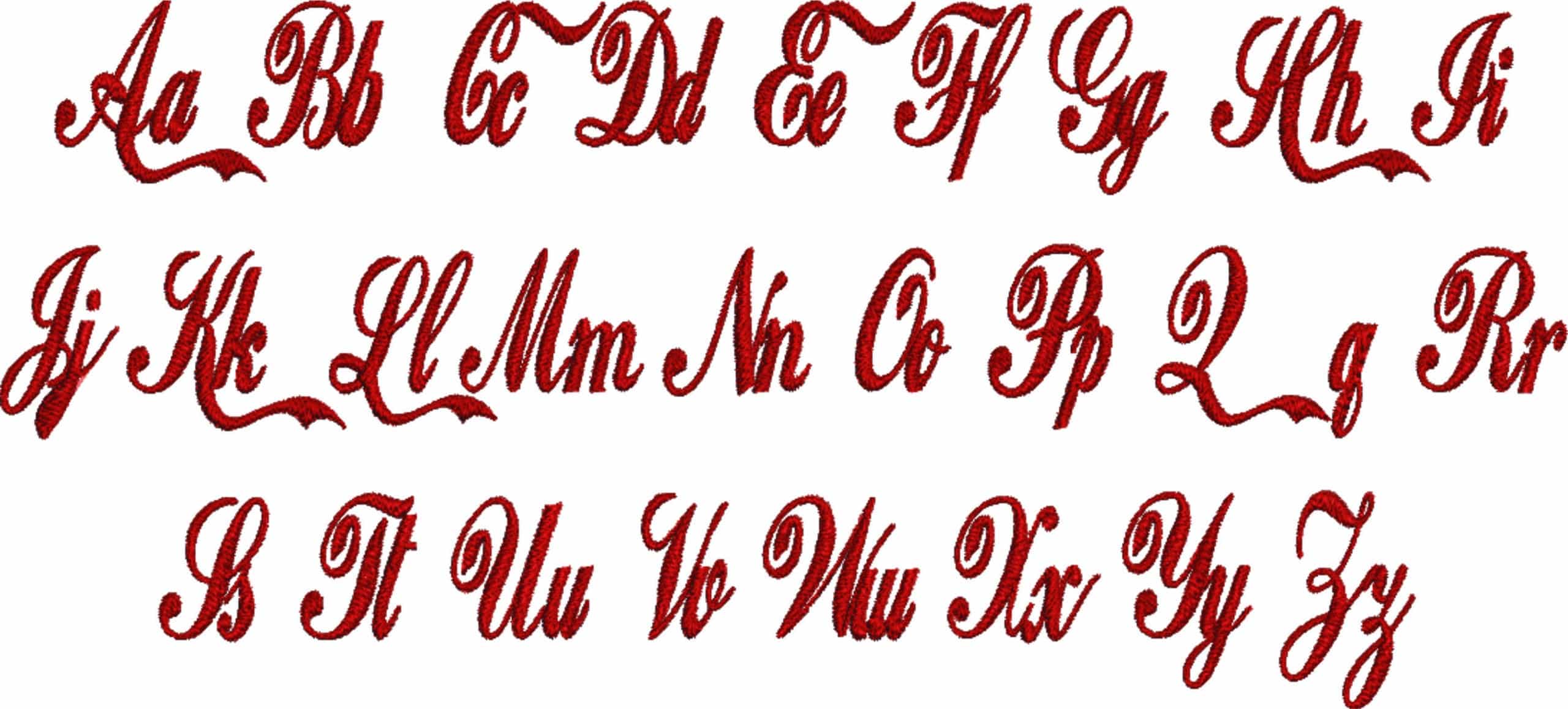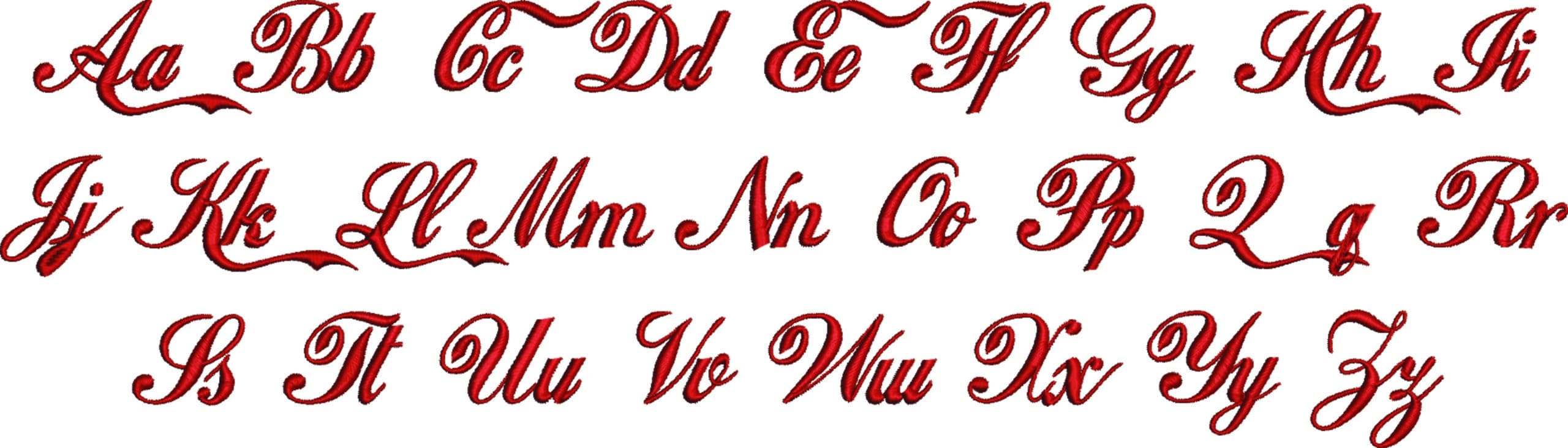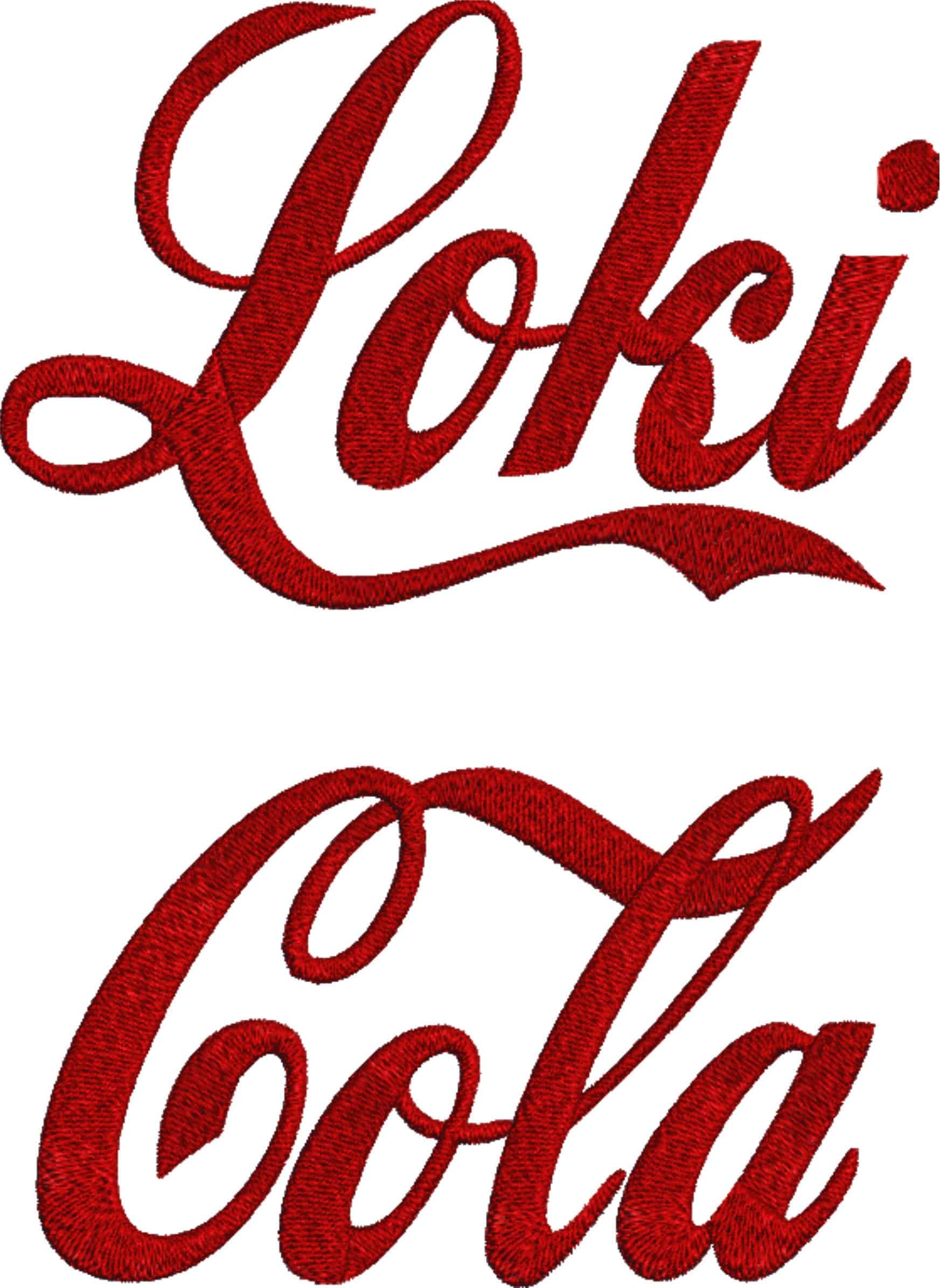
A bold cola-style script font with sweeping swashes, ideal for names, slogans and standout stitching on casual pieces.
Add retro script to your stitching with this Loki Cola embroidery font set, styled in flowing cursive with looped capitals and a classic underline swash. The lettering has the familiar sign-painted feel of vintage soft-drink branding, shown here in red and white satin-style stitching that gives the words real presence. It suits anyone who wants custom text to look playful, polished and a little nostalgic rather than plain.
Use it for names or short phrases on varsity jackets, hoodies, café aprons, tote bags or the back yoke of a denim shirt. The connected script reads best when you want a continuous, confident line, with the underline helping a word sit neatly across the fabric. On smooth cotton, sweatshirt fleece or canvas, the bold curves and filled strokes give the lettering a clean, graphic look that stands out without needing extra decoration.